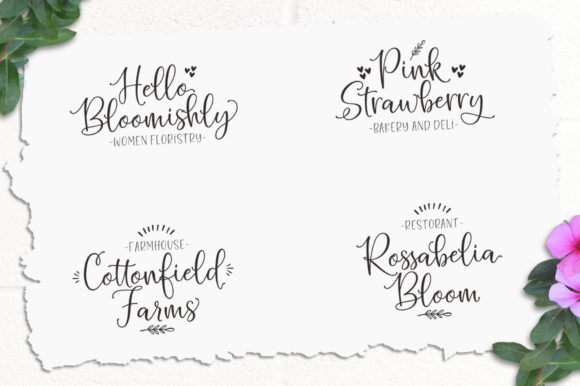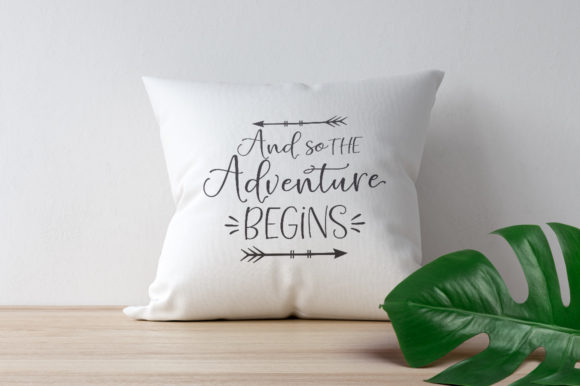
Hello Blushberry Duo Font
db-ku.com - Script & Handwritten -- The Hello Blushberry is a playful script font. It contains many alternative characters to choose from as well as natural ligatures which bring an authentic touch. A collection of strange and initial swash tips is also included to add finishing touches or fill the space in your designs.